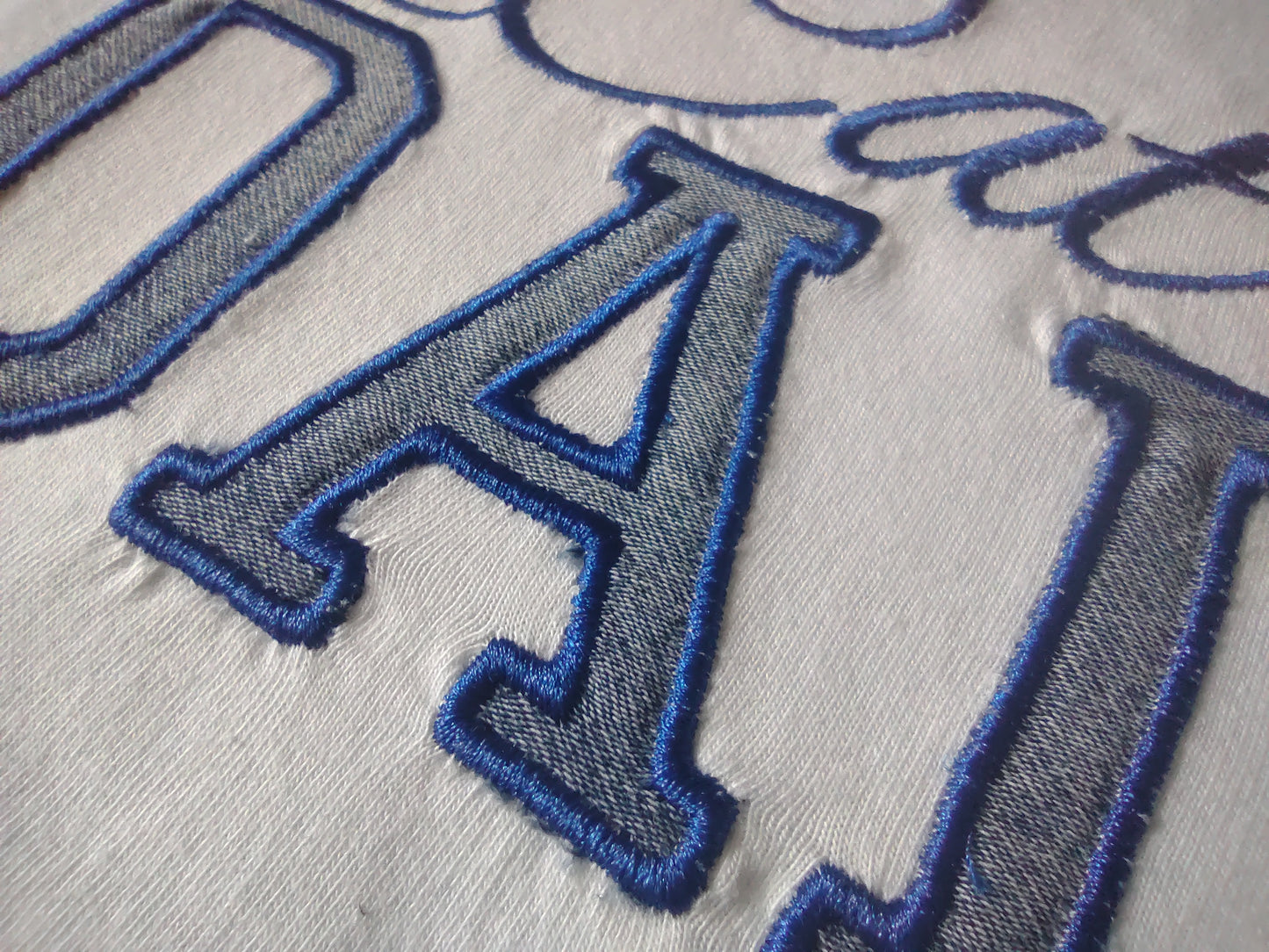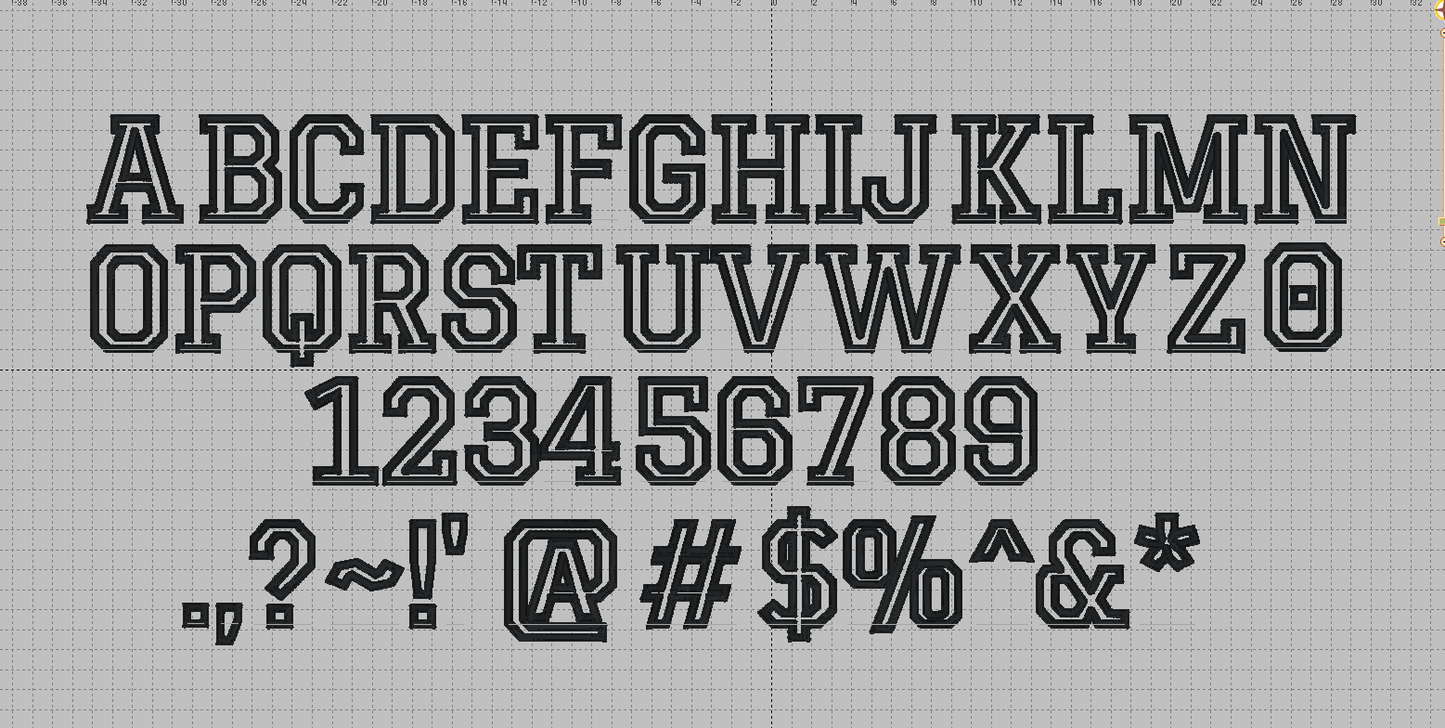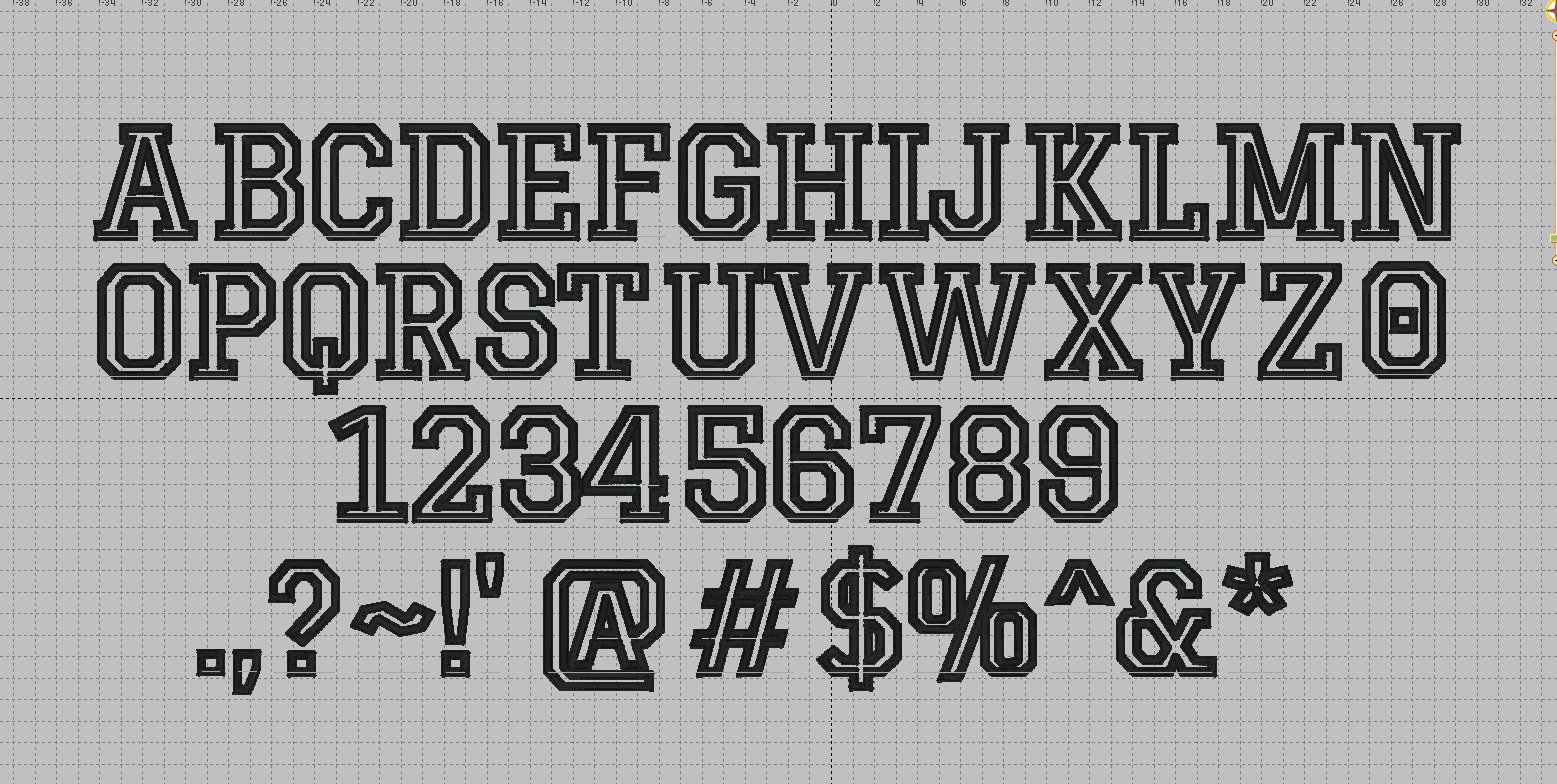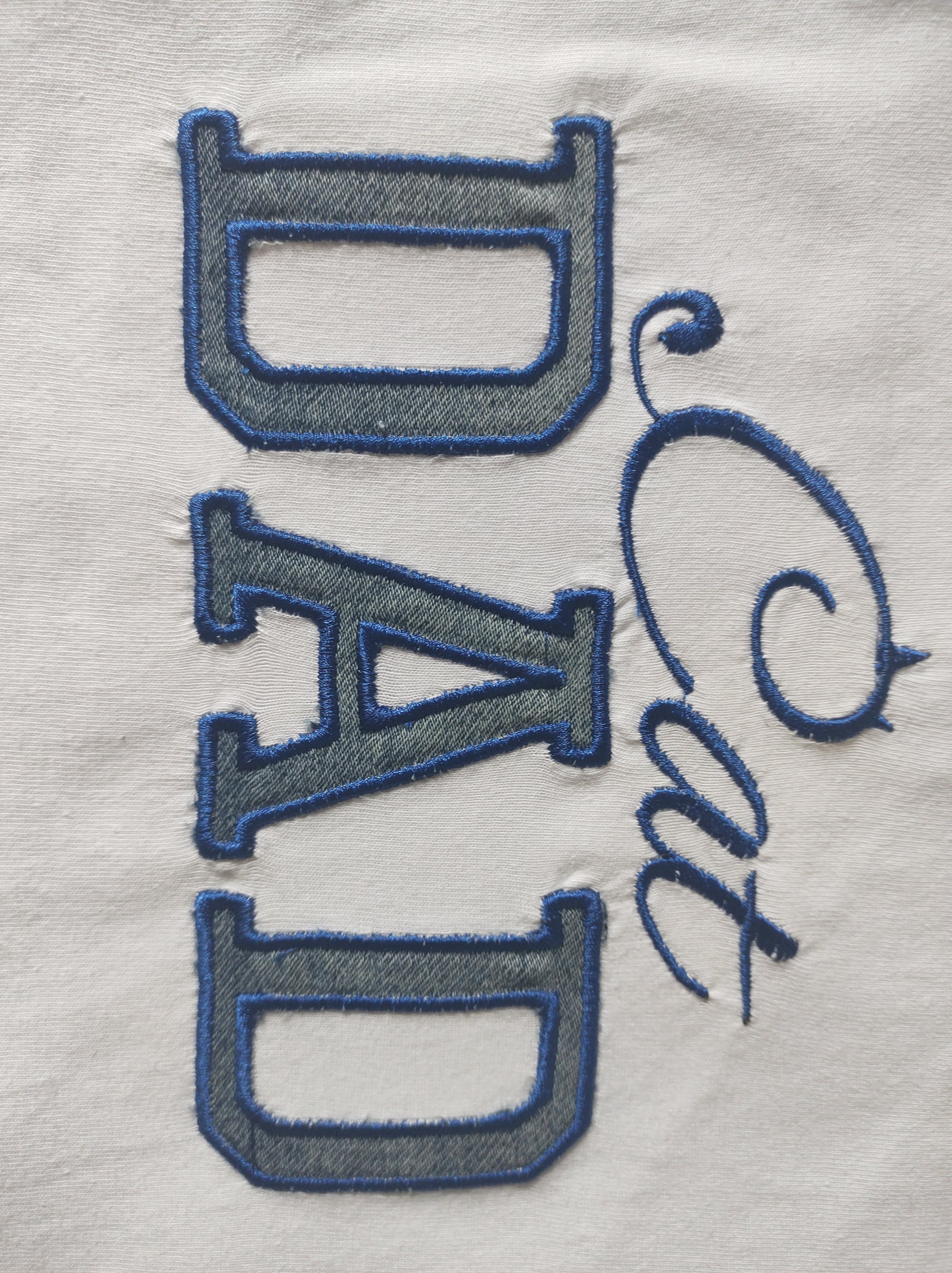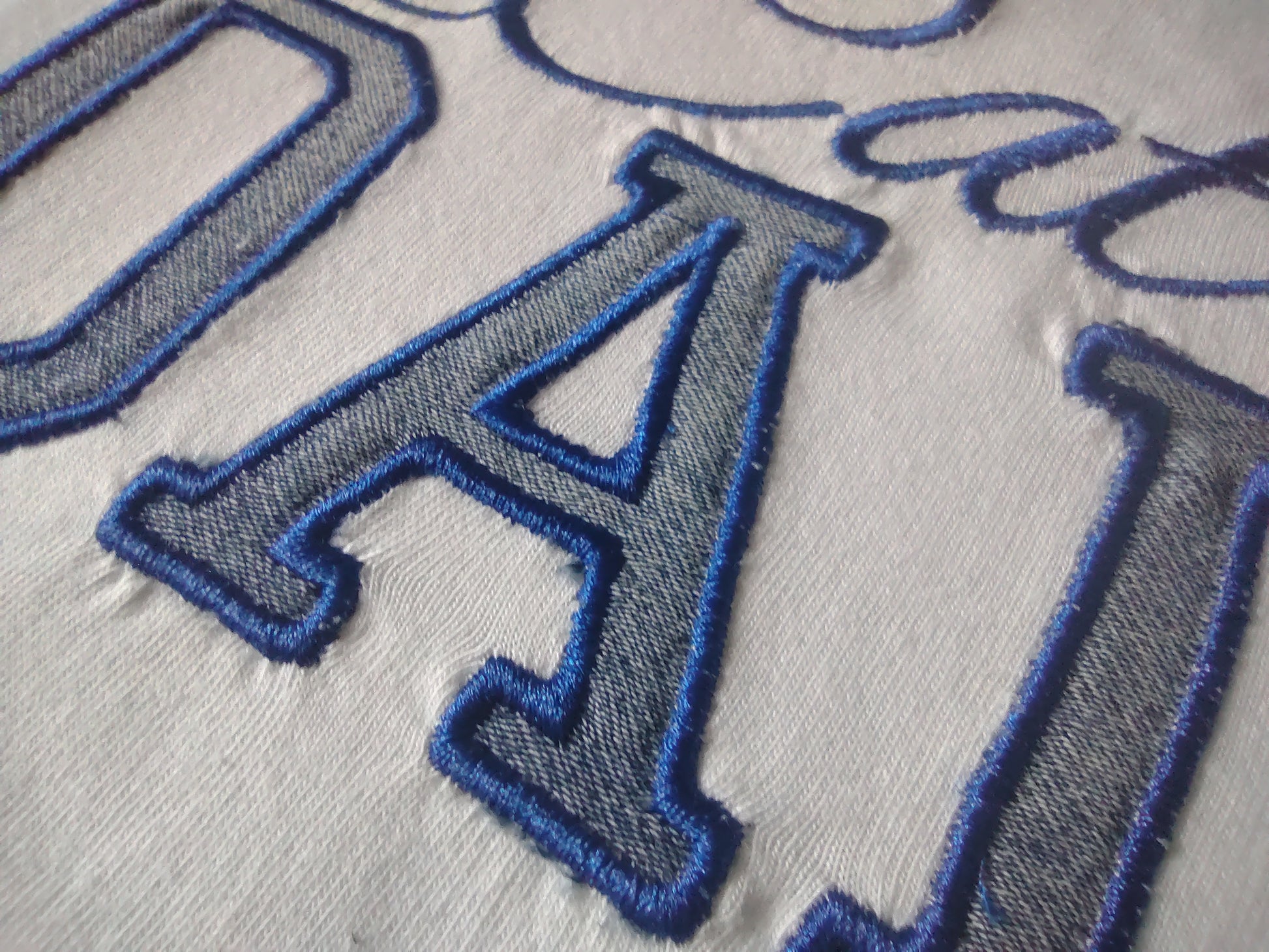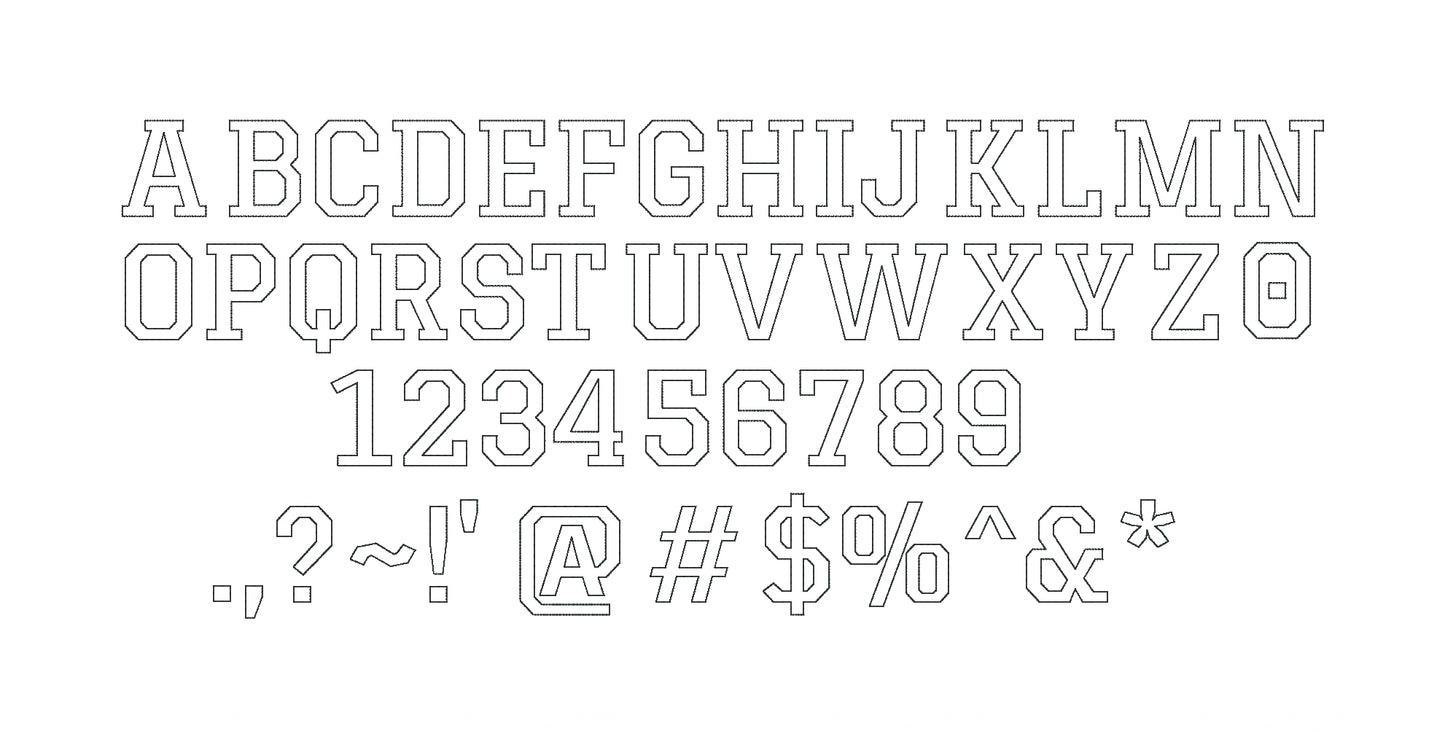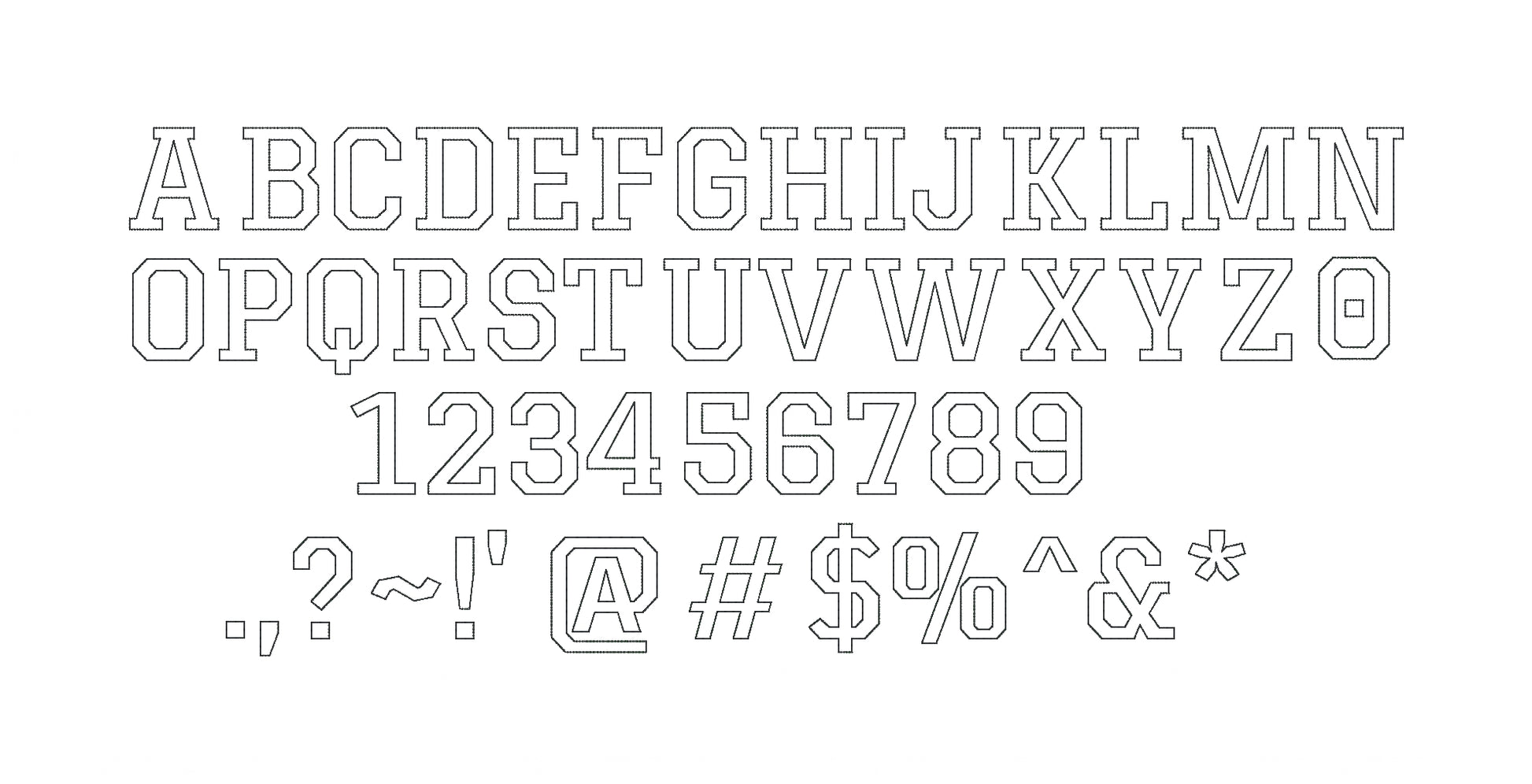
Sport applique font for Machine Embroidery | Native BX File only | Bean and Satin applique
Professional sport-style applique font designed specifically for machine embroidery. This native BX file format delivers crisp, clean lettering perfect for athletic wear, team apparel, and custom garments. Features both bean stitch and satin stitch techniques for versatile application options. The bold, modern letterforms work beautifully on jerseys, jackets, hats, and bags. Each character is optimized for smooth stitching and professional results. BX file format ensures compatibility with Embrilliance Express free software. Ideal for embroiderers looking to add dynamic, sports-inspired text to their projects with minimal setup time.